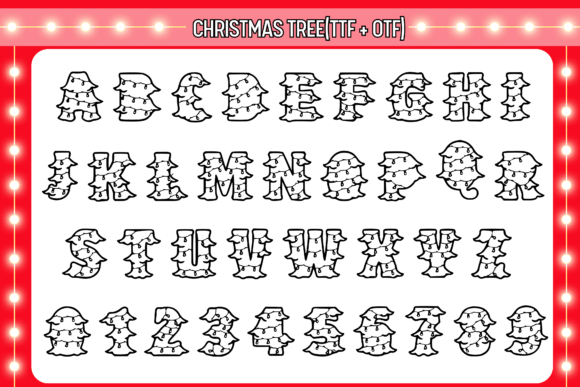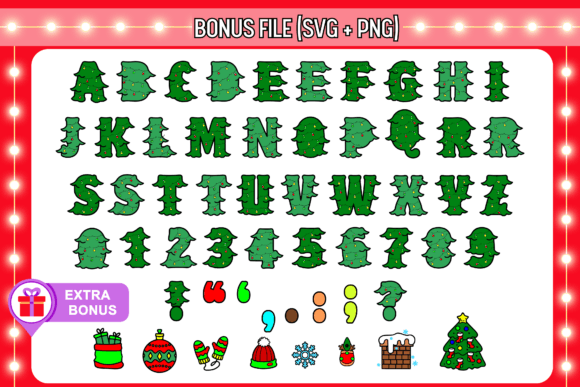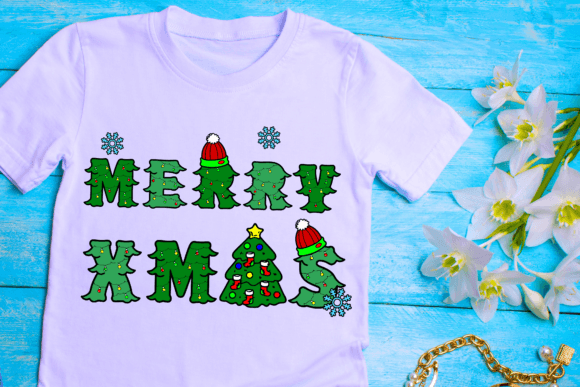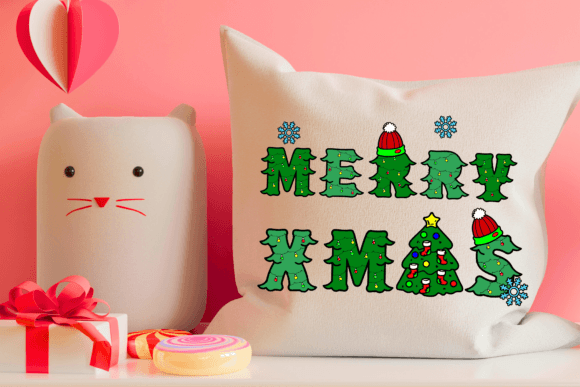
Deck the Halls with Typography: The Magic of Christmas Tree Font
It’s that time of the year when creativity knows no bounds, and our imagination runs wild with festive ideas. You’re probably busy brainstorming the perfect holiday card design or planning a cozy Christmas party. Amidst all the chaos, have you ever stopped to think about the fonts that bring your designs to life?
Enter the Christmas Tree Font, a delightful typographic treasure that’s as playful as it is festive. This charming font transforms each letter into a miniature Christmas tree, adorned with twinkling lights and ornaments. Its whimsical charm makes it a perfect fit for holiday-themed projects, from greeting cards to decorations.
For designers, the Christmas Tree Font is a valuable asset, offering a unique way to add a personal touch to their creations. With its versatility and festive flair, it’s sure to become a favorite in your design arsenal.
Key Features of Christmas Tree Font
- Unique Characteristics: The Christmas Tree Font features a distinctive, hand-drawn design with intricate details, making it perfect for holiday-themed projects and festive designs.
- Characters and Glyphs: The font includes a wide range of characters, including uppercase and lowercase letters, numbers, punctuation marks, and special characters, as well as holiday-themed symbols and icons.
Christmas Tree Font Review
Overall, I found the Christmas Tree Font to be a creative and unique addition to any holiday-themed design. ✨ The font’s use of festive colors and geometric shapes makes it perfect for capturing the spirit of Christmas. ✨ I particularly like how the font’s branches can be customized to fit different design styles.
However, there are a few limitations that may hinder its usability. ⚠️ For instance, the font may be too busy for some designs, and the color palette can be overwhelming if not used carefully. ⚠️ Additionally, the font’s size and spacing may not be optimized for all use cases.
- Unique and creative design that captures the spirit of Christmas ✨
- Customizable branches for different design styles
- Festive color palette
- May be too busy for some designs ⚠️
- Color palette can be overwhelming if not used carefully ⚠️
- Size and spacing may not be optimized for all use cases ⚠️
Overall, I would recommend the Christmas Tree Font for designers looking to add a touch of holiday cheer to their designs. With some careful consideration of its limitations, this font can be a valuable addition to any design toolkit.
Tips for Getting the Most Out of Christmas Tree Font
Some tips for getting the most out of Christmas Tree Font include:
- Experiment with different font sizes and styles to create a festive look.
- Combine Christmas Tree Font with other holiday-themed graphics and images.
- Use Christmas Tree Font in conjunction with other festive fonts to create a unique and eye-catching design.